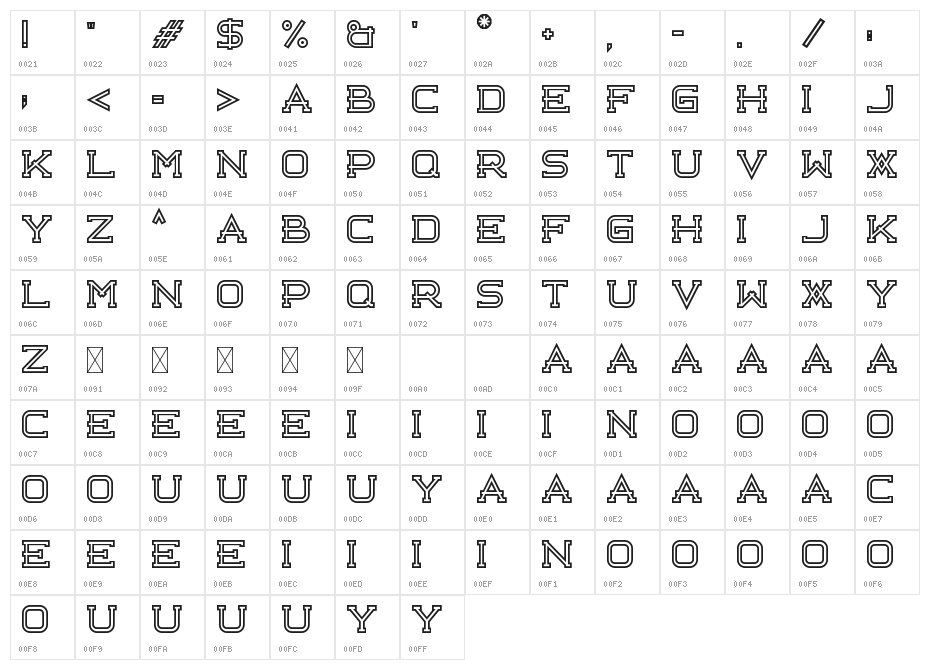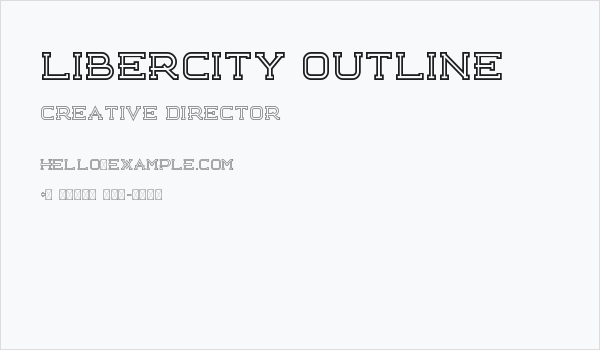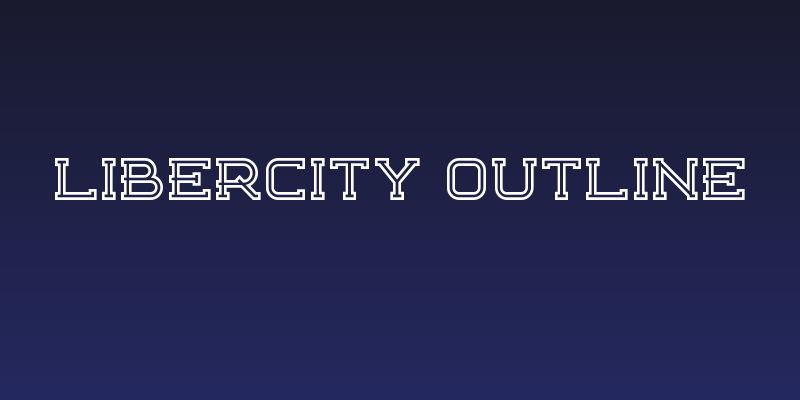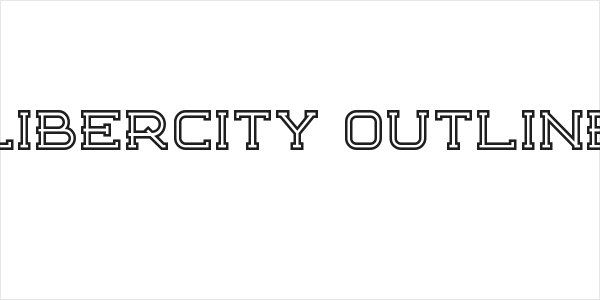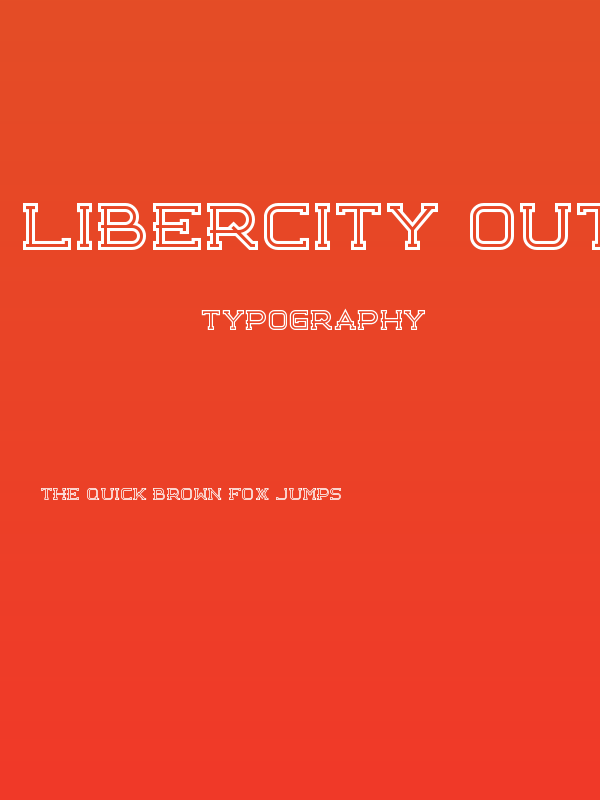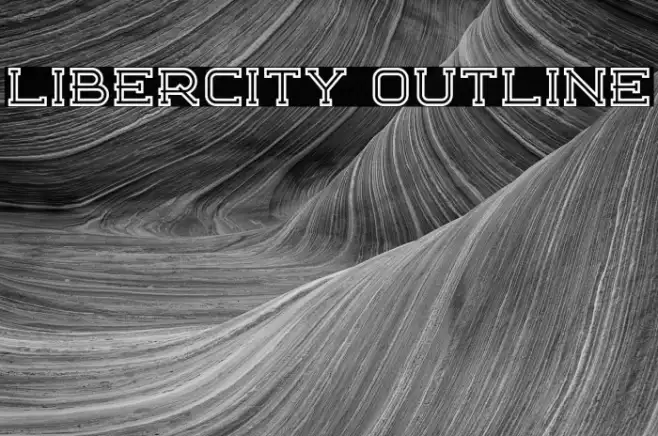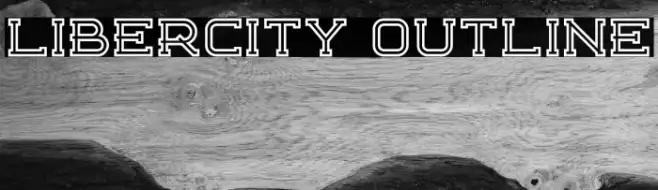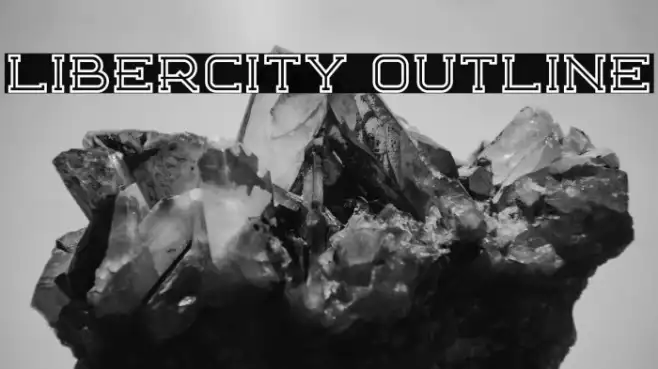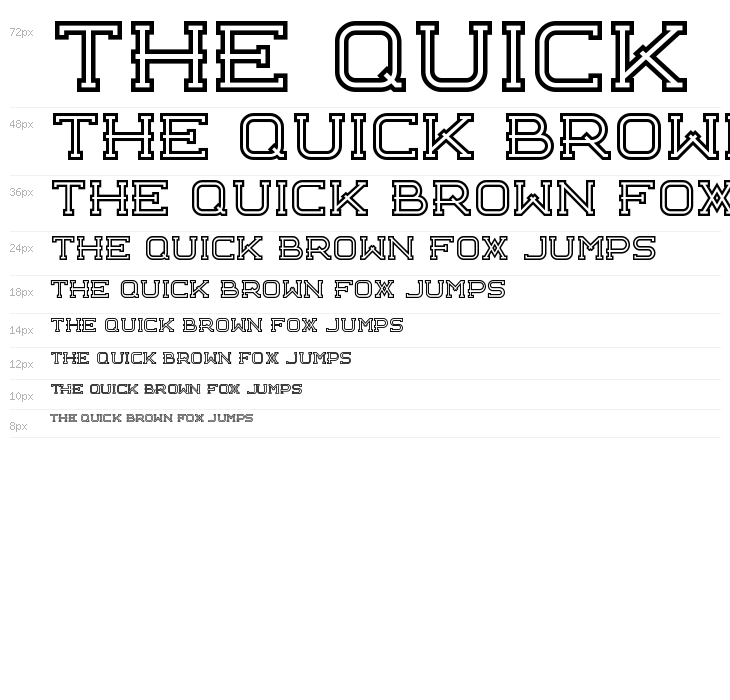
Libercity Outline Font
Libercity Outline Description
This font features a bold, geometric outline style that emphasizes each character's structure with a double-line effect. The uppercase letters are distinct with sharp angles and a modern architectural feel, making them stand out prominently. The characters are evenly spaced, providing a clean and organized appearance. The special characters maintain the same outlined style, ensuring consistency throughout. This font's unique design is ideal for projects that require a strong visual impact.
| Proposed Projects | Ideal for branding, posters, headlines, and any design requiring a strong visual impact. |